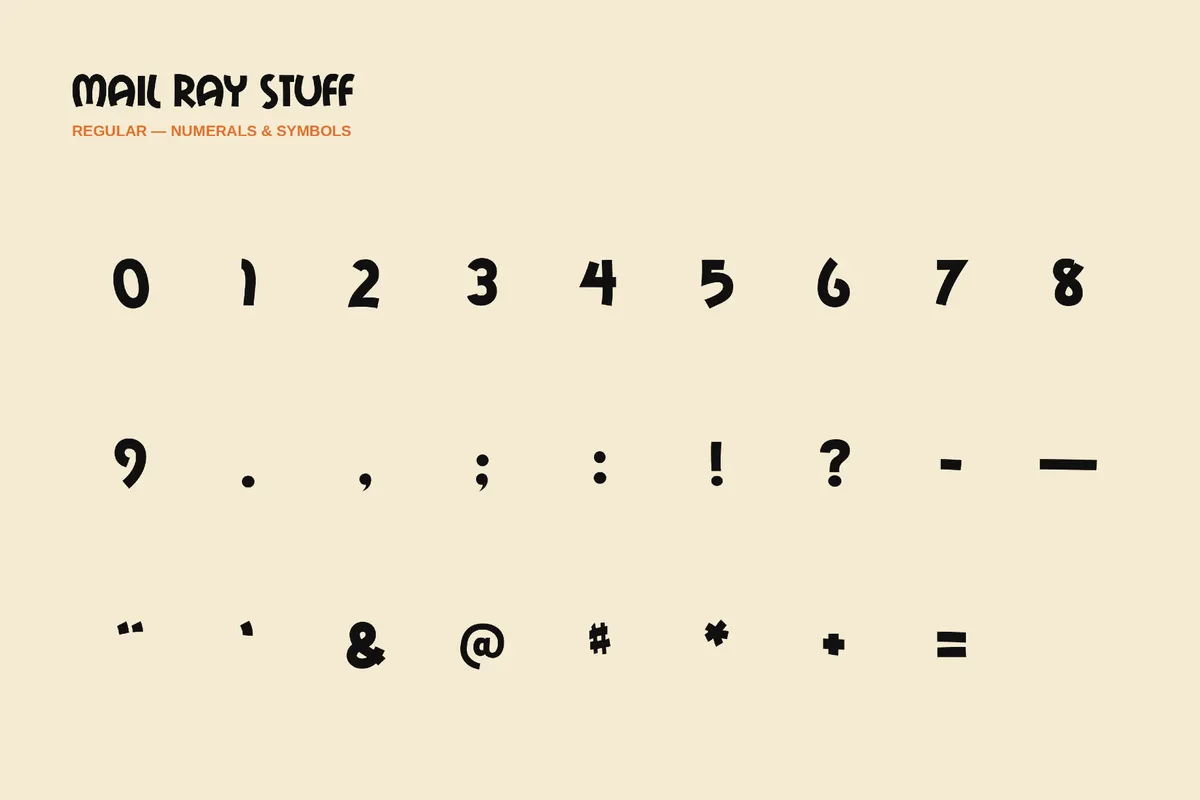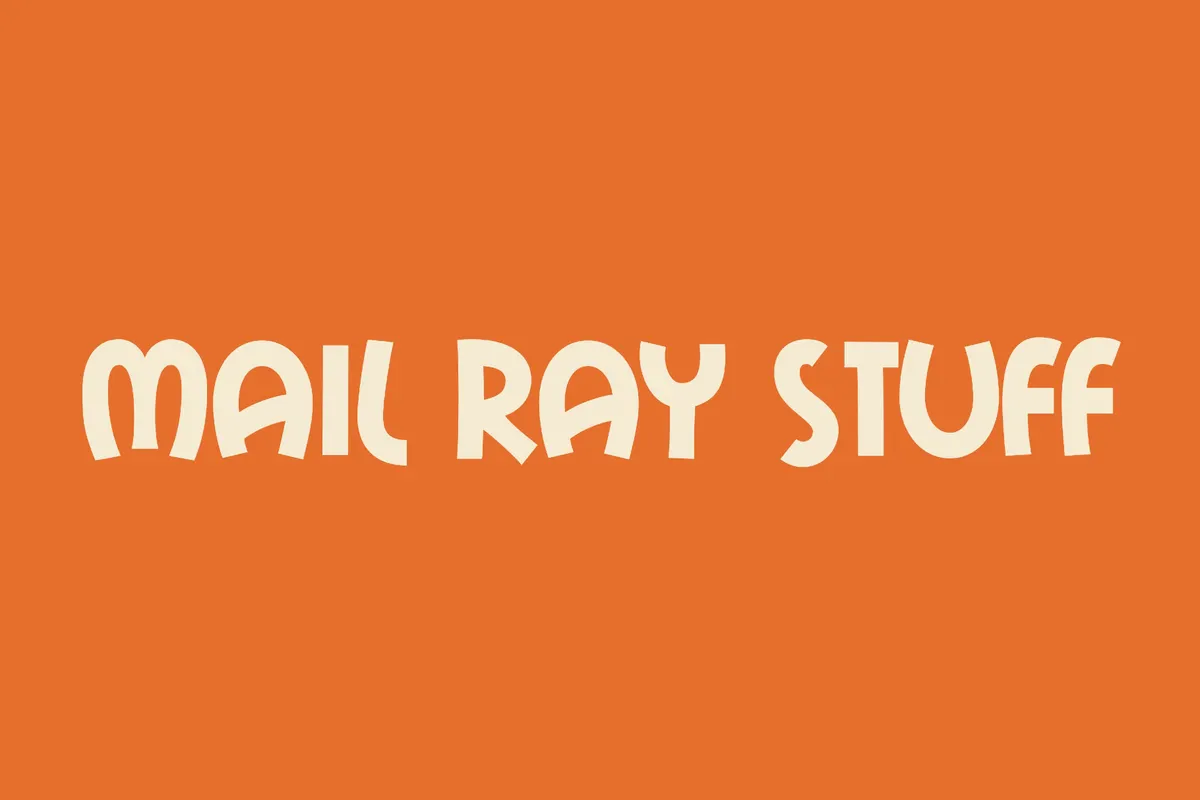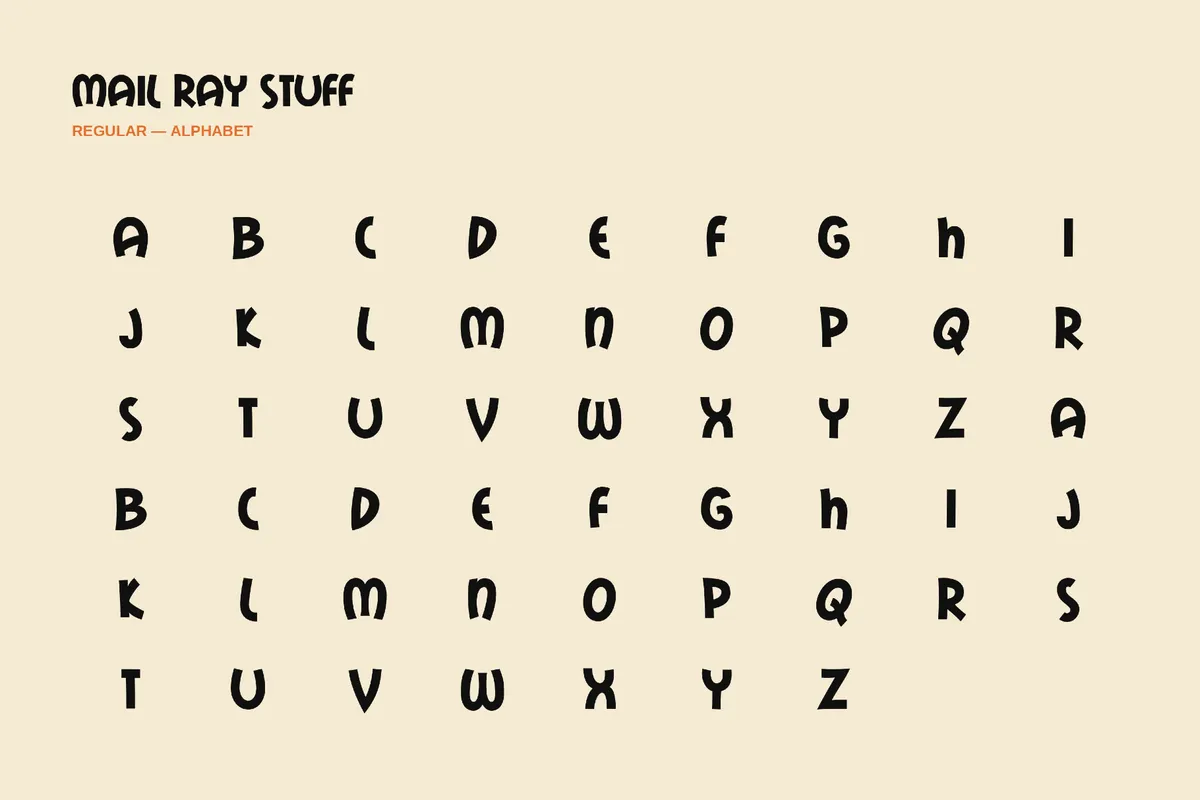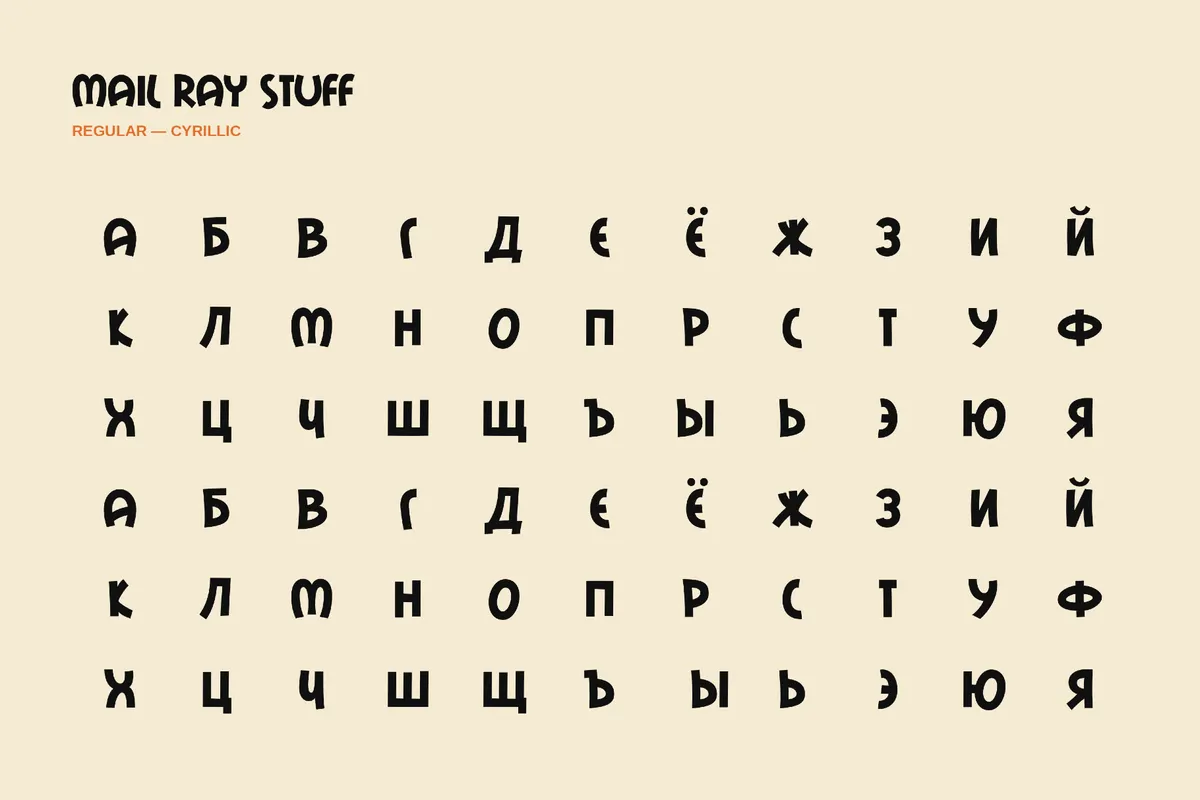
Mail Ray Stuff - Cartoon Font
Mail Ray Stuff
A loose illustrated alphabet of Mail Ray Stuff turns every letter into a small graphic moment, and mixes doodled shapes, playful symbols, postal marks, and casual hand-drawn personality. The style evokes mail-art experiments, school notebook sketches, and pen-pal stationery.
It fits postcards, kids' projects, party invitations, magazines, sticker packs, scrapbook layouts, classroom graphics, DIY packaging, journal pages, playful merch, and social media artwork.